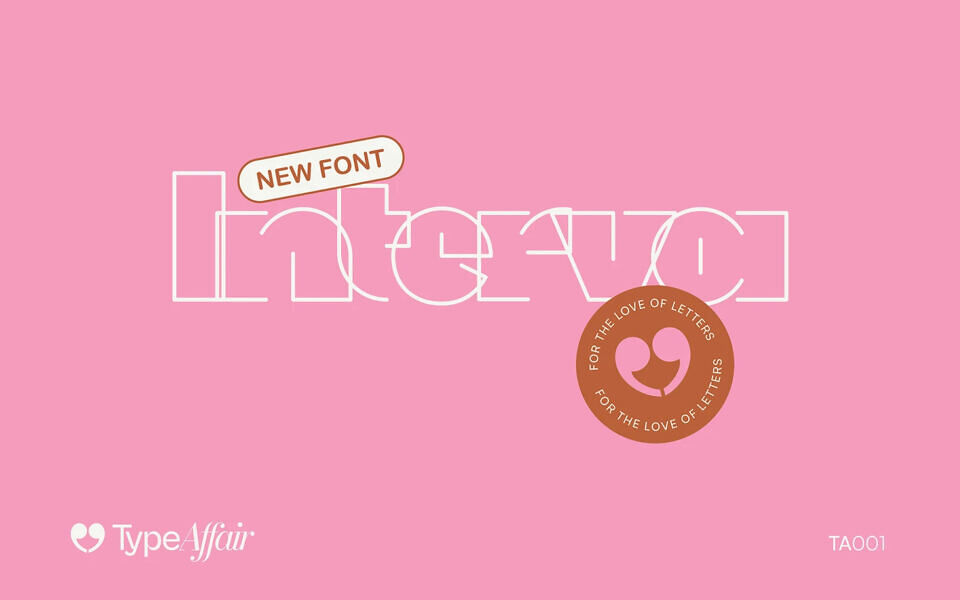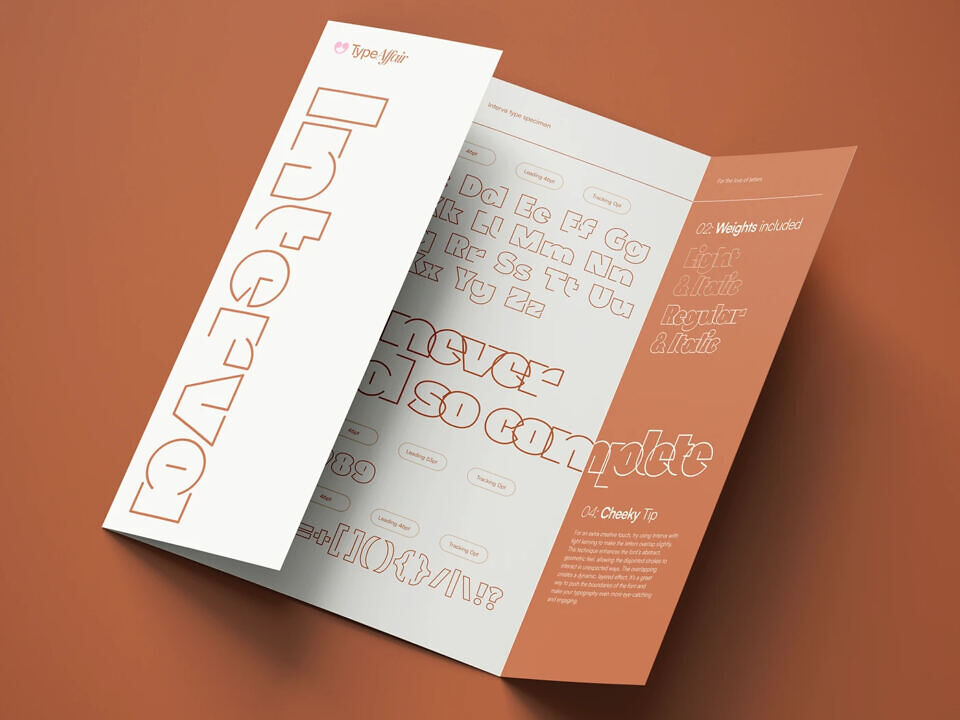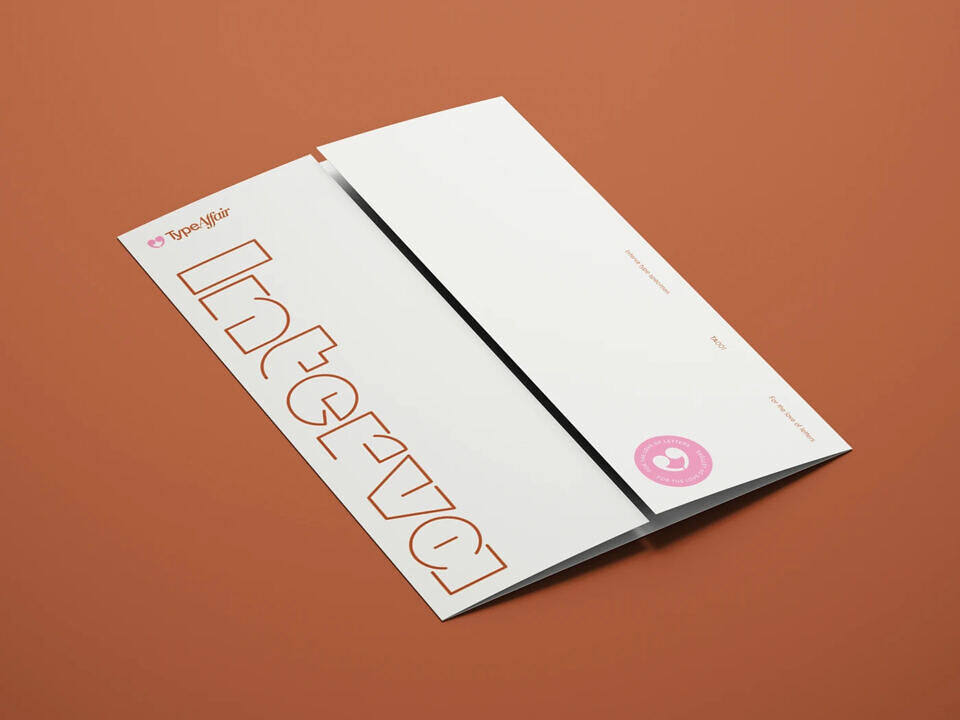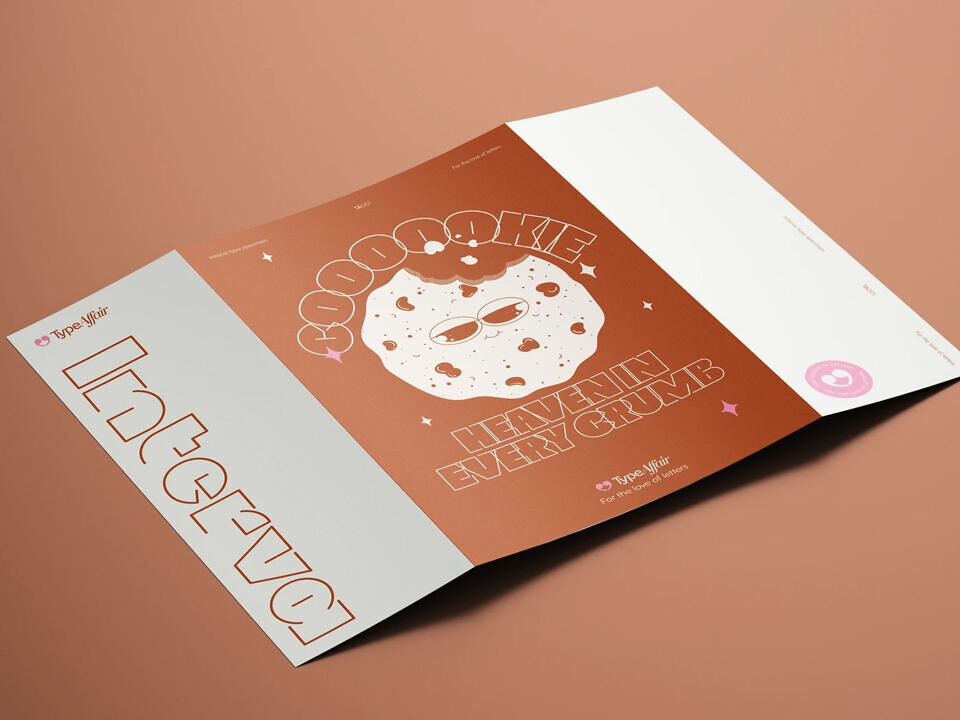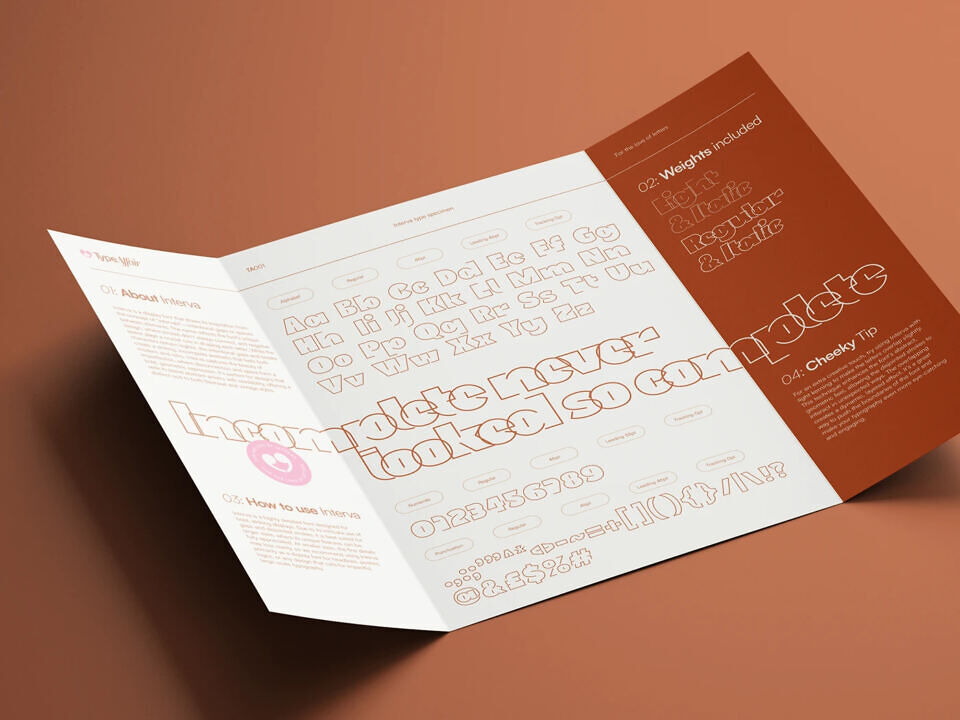
Interva Font
Interva is a display font inspired by the concept of intervals — the intentional gaps and spaces between elements. The name reflects its unique structure: strokes that intersect but don’t always connect, where negative space plays a defining role in shaping each letter.
While the characters remain legible, their open construction creates a striking sense of incompleteness — modern yet nostalgic. Interva captures the beauty of imperfection, where disconnection and space form a bold geometric expression. It draws subtle influence from Bauhaus and vintage design, offering a balance between abstract artistry and functional readability.
Interva is crafted for bold, large-scale typography. Its intricate details and disjointed strokes make it ideal for headlines, posters, logos, or any project that demands strong visual impact. At smaller sizes, the delicate gaps may lose clarity — so it’s best used where its structure can shine.